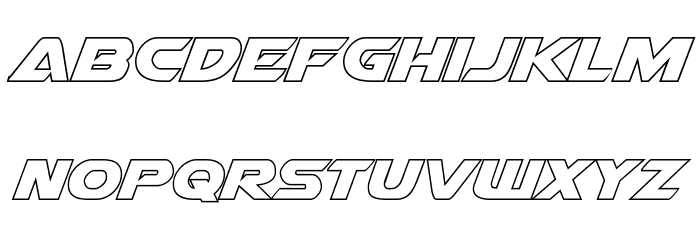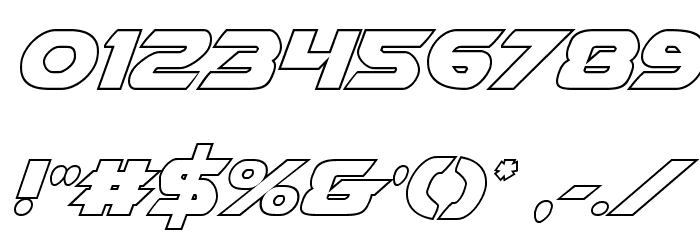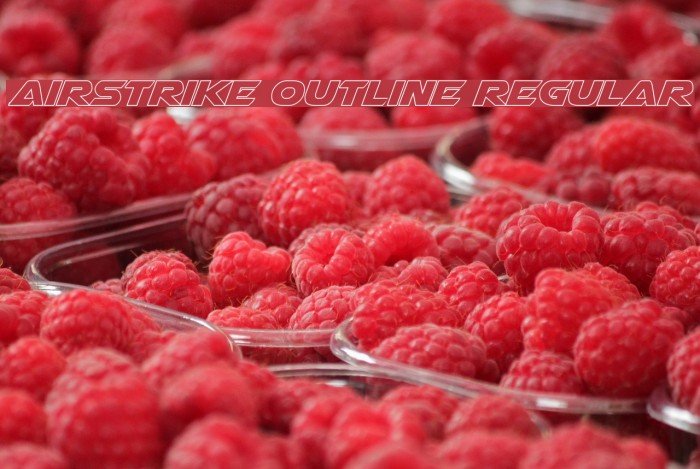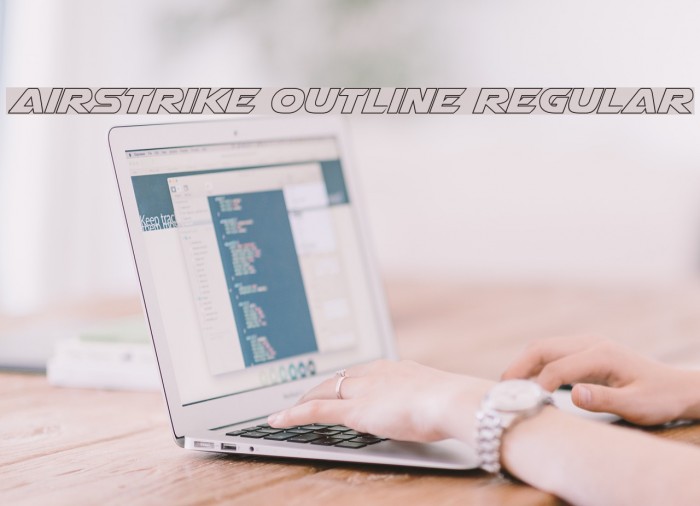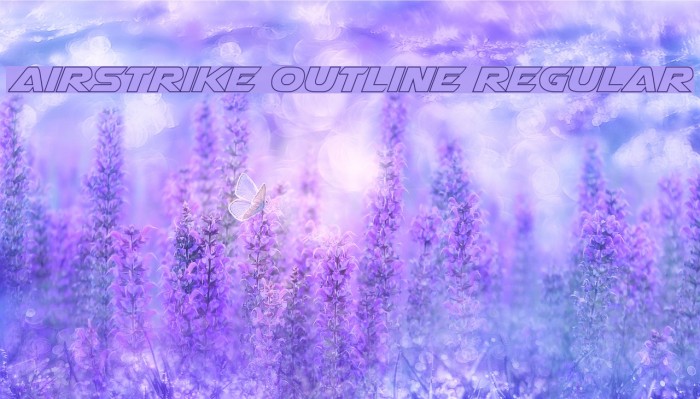
Airstrike Outline Regular Font
This font features a bold, geometric outline style with a futuristic and dynamic appearance. The characters are constructed with sharp angles and clean lines, creating a sense of movement and speed. The uppercase and lowercase letters are consistent in style, maintaining a uniform look across the alphabet. Numbers and special characters are designed to match the overall aesthetic, ensuring cohesion throughout. The font's outline nature allows for creative use of color and layering, making it versatile for various design applications.
A bold, geometric outline font with a futuristic and dynamic style.
- Proposed Projects: Ideal for projects requiring a modern and edgy look, such as tech branding, sports team logos, video game titles, and sci-fi themed posters.